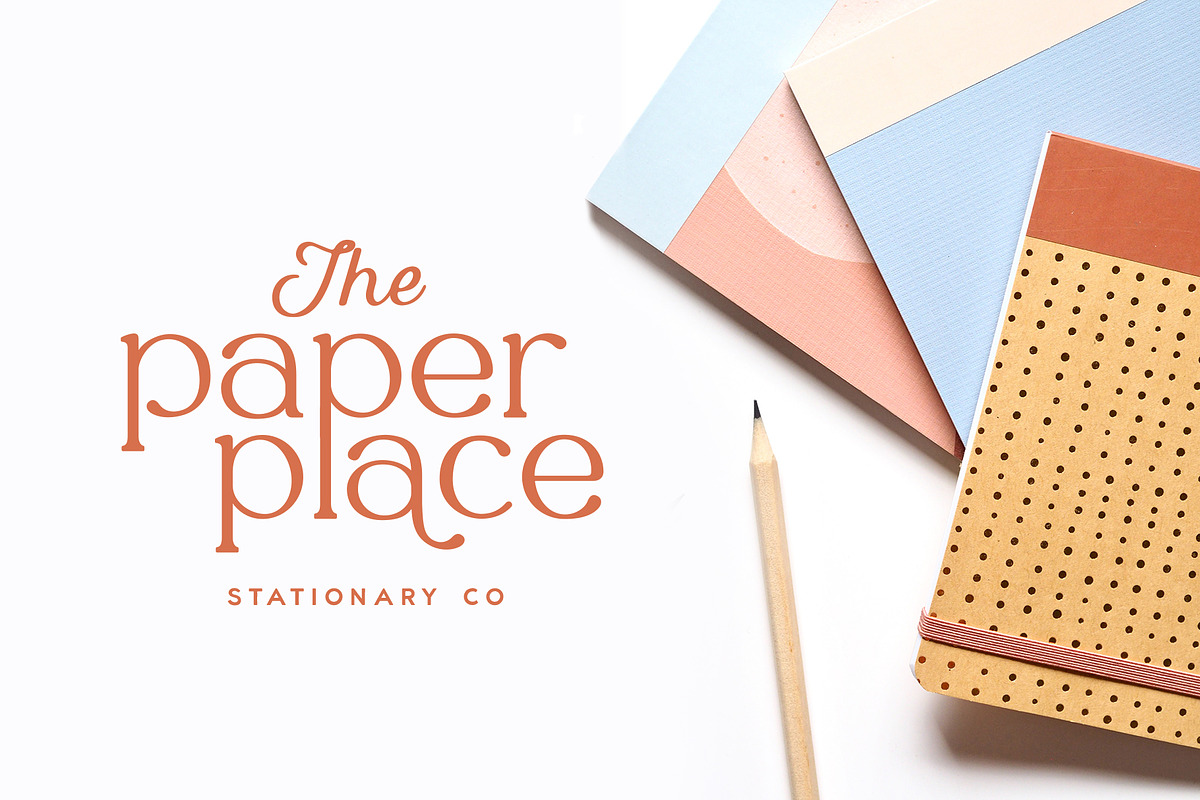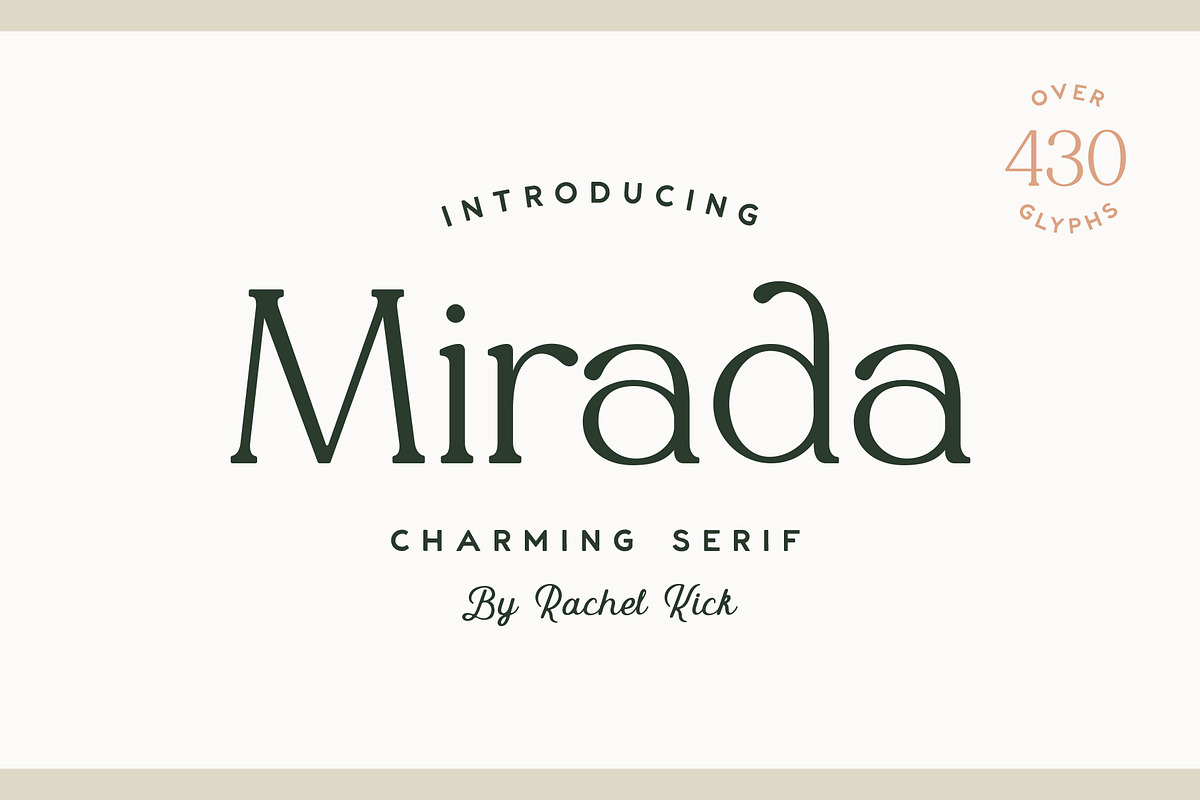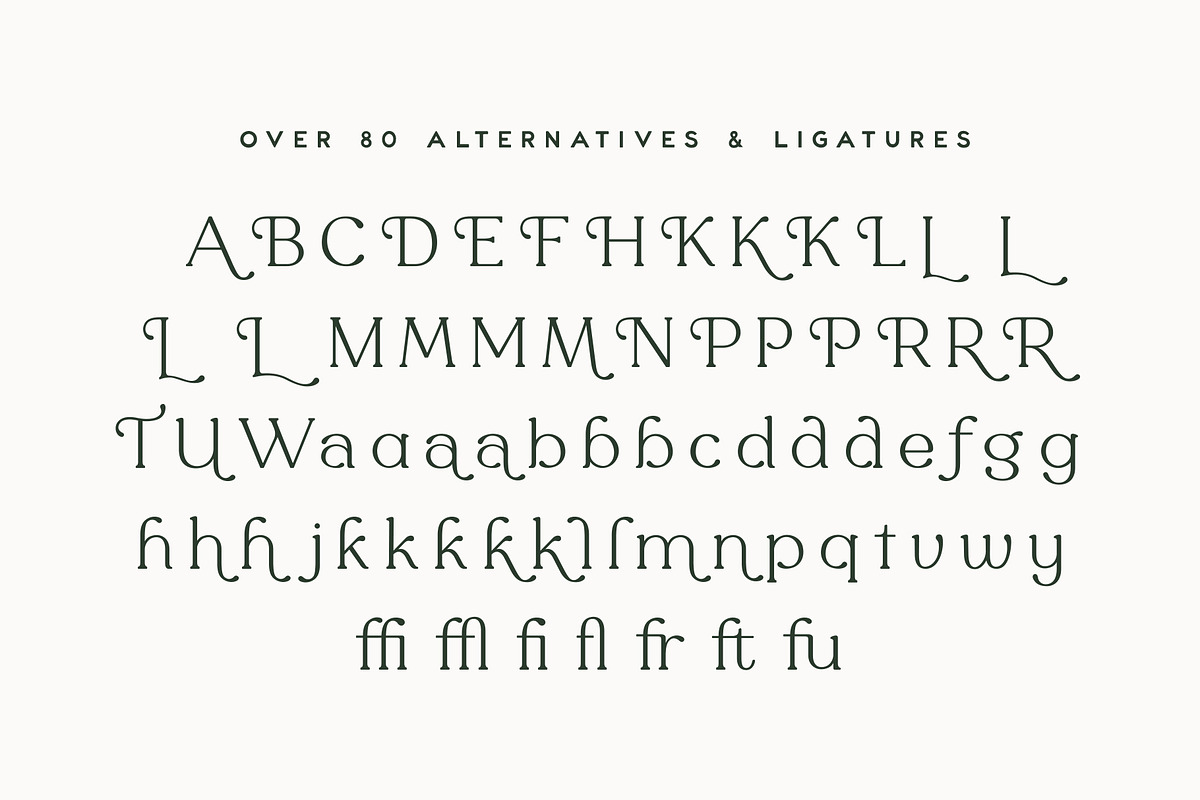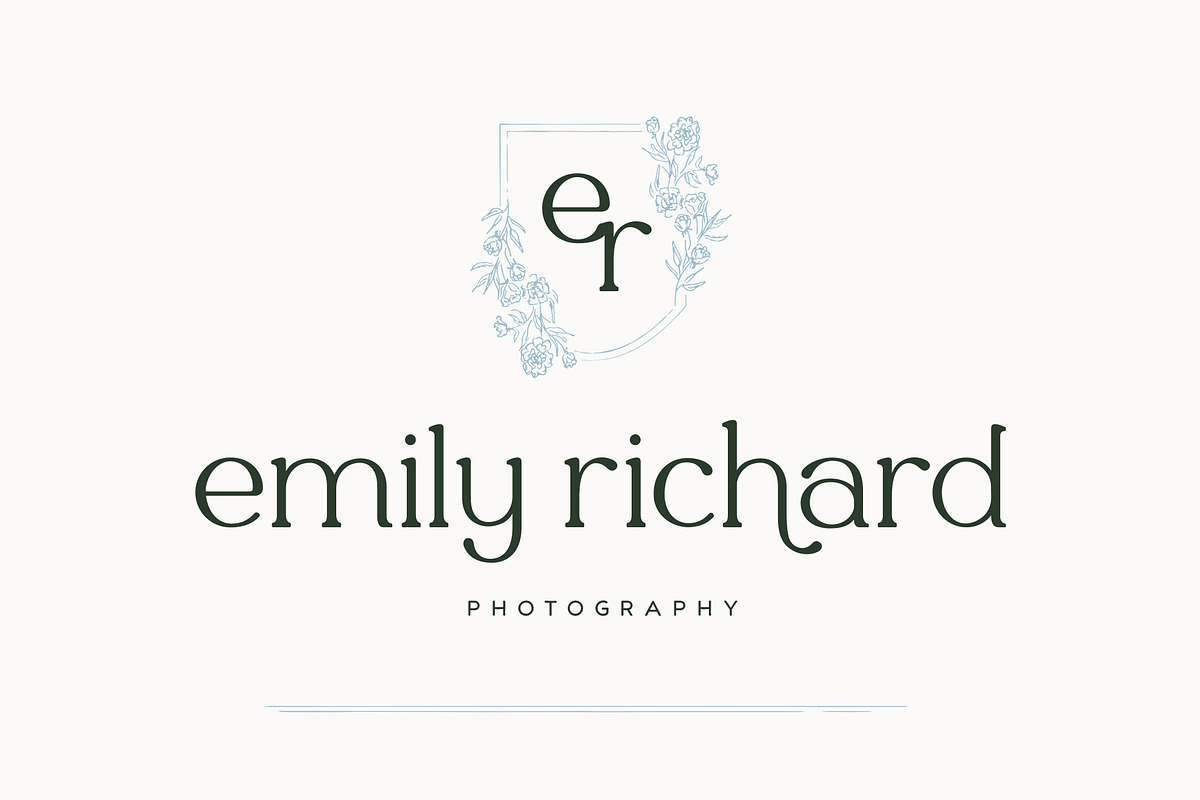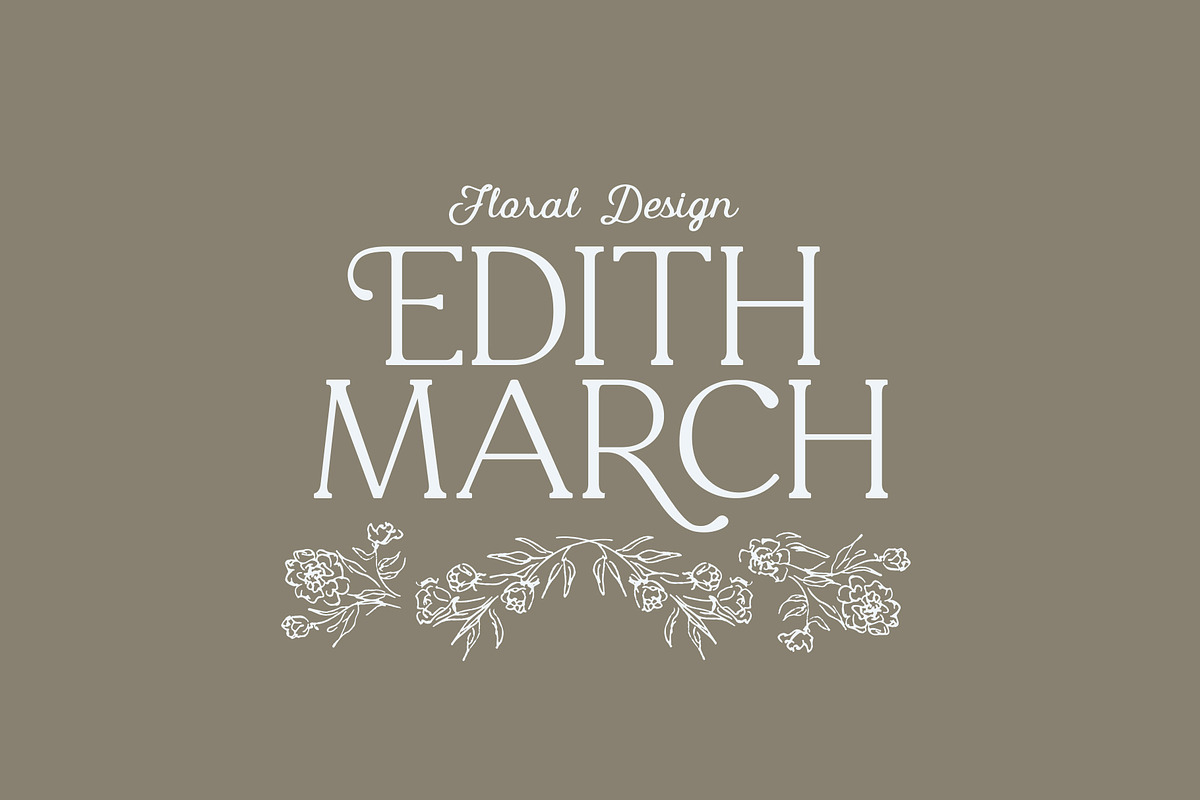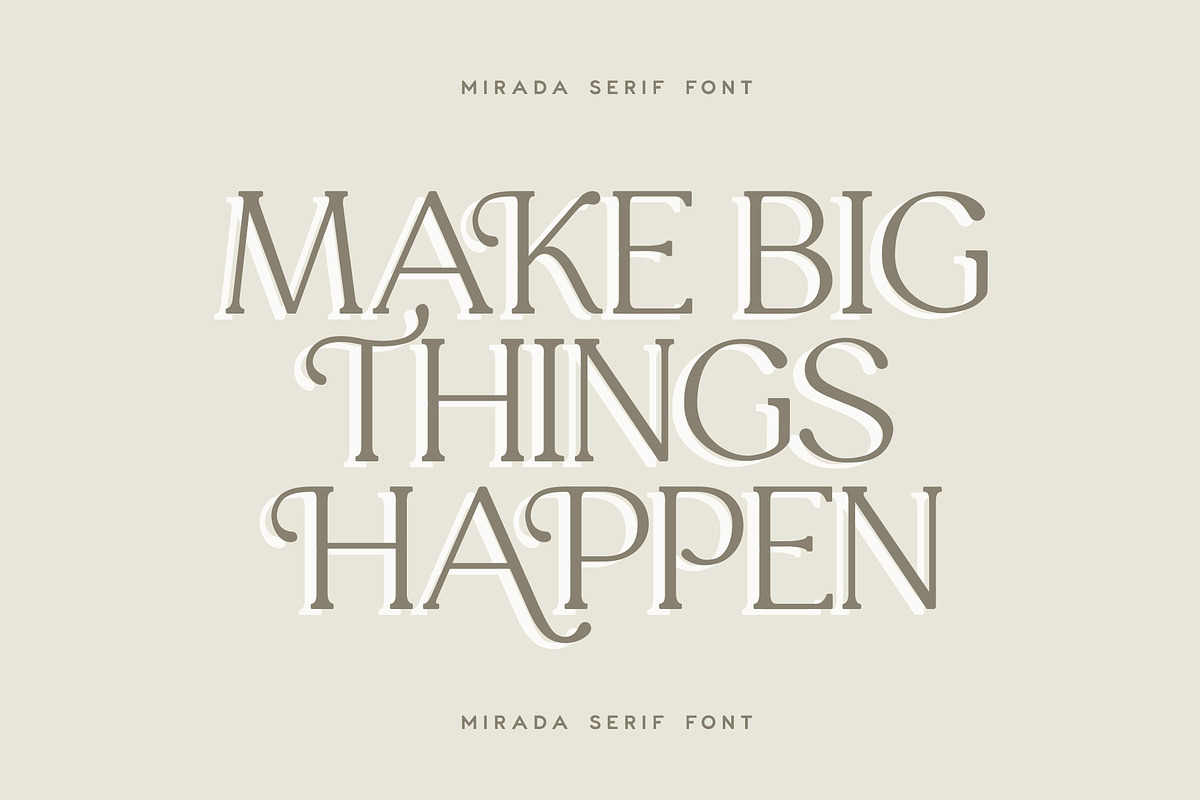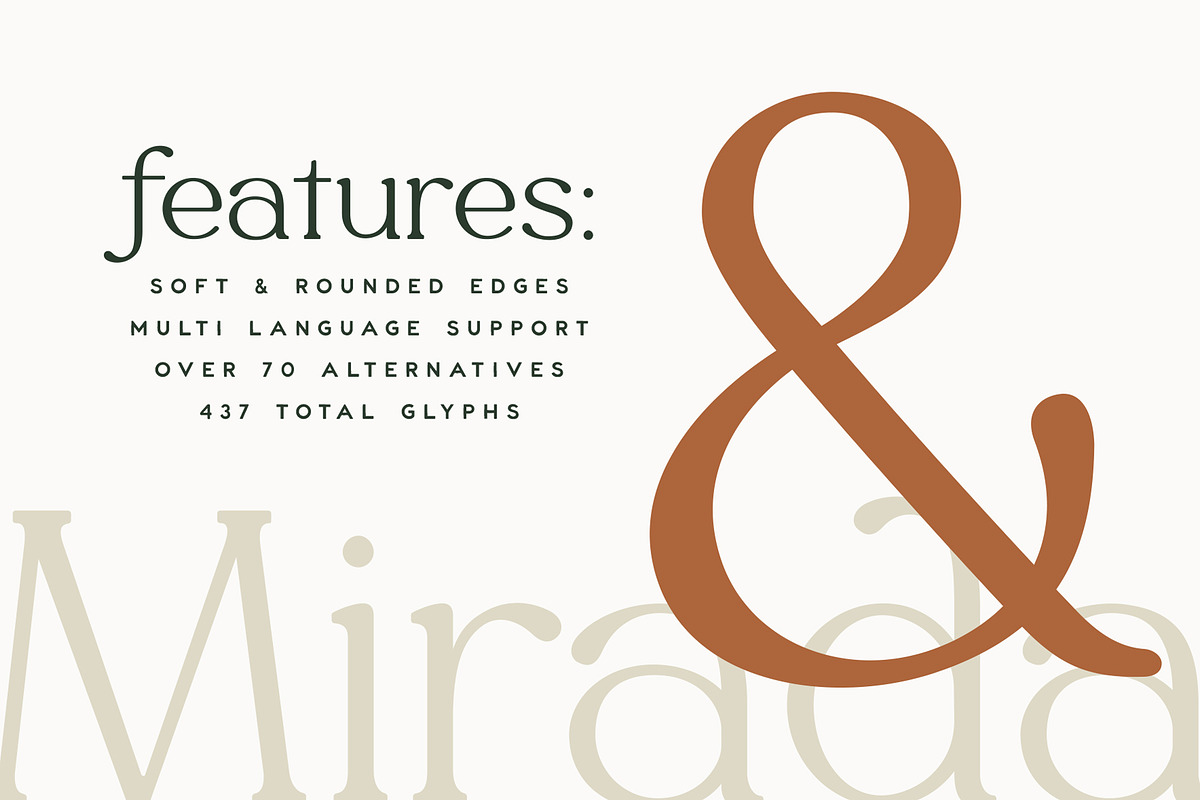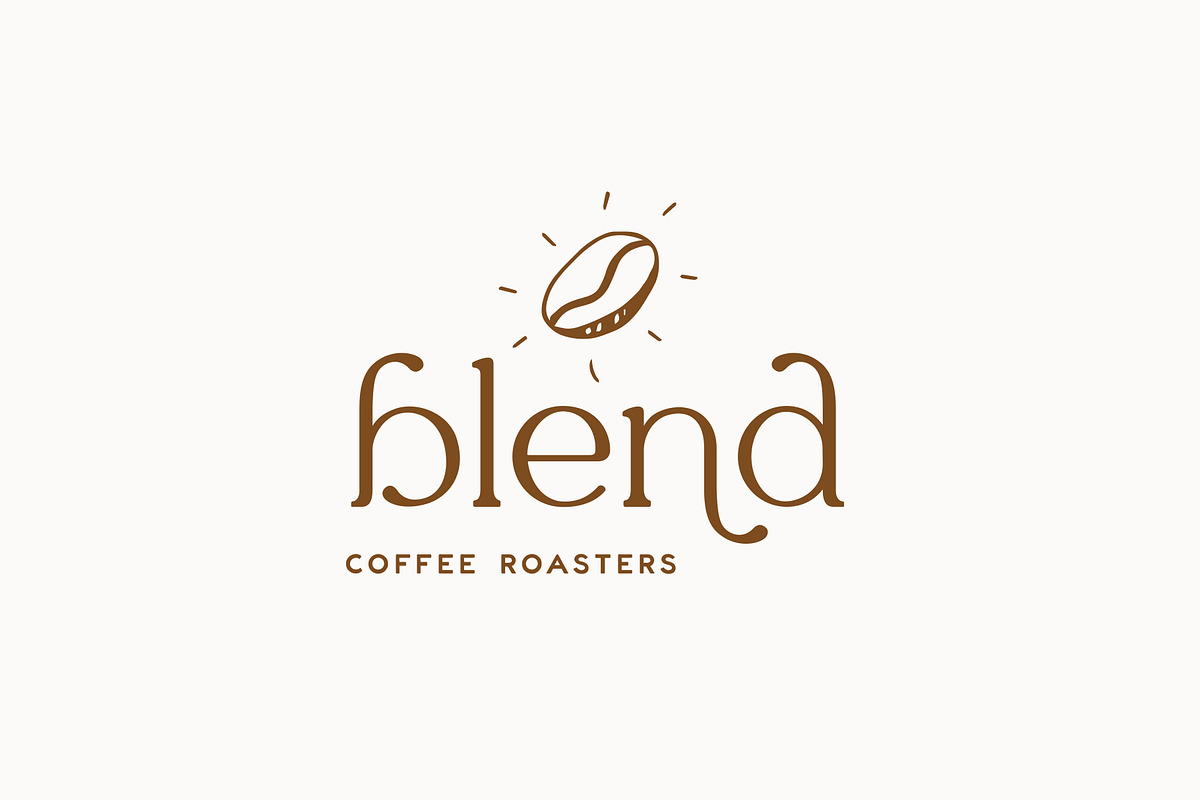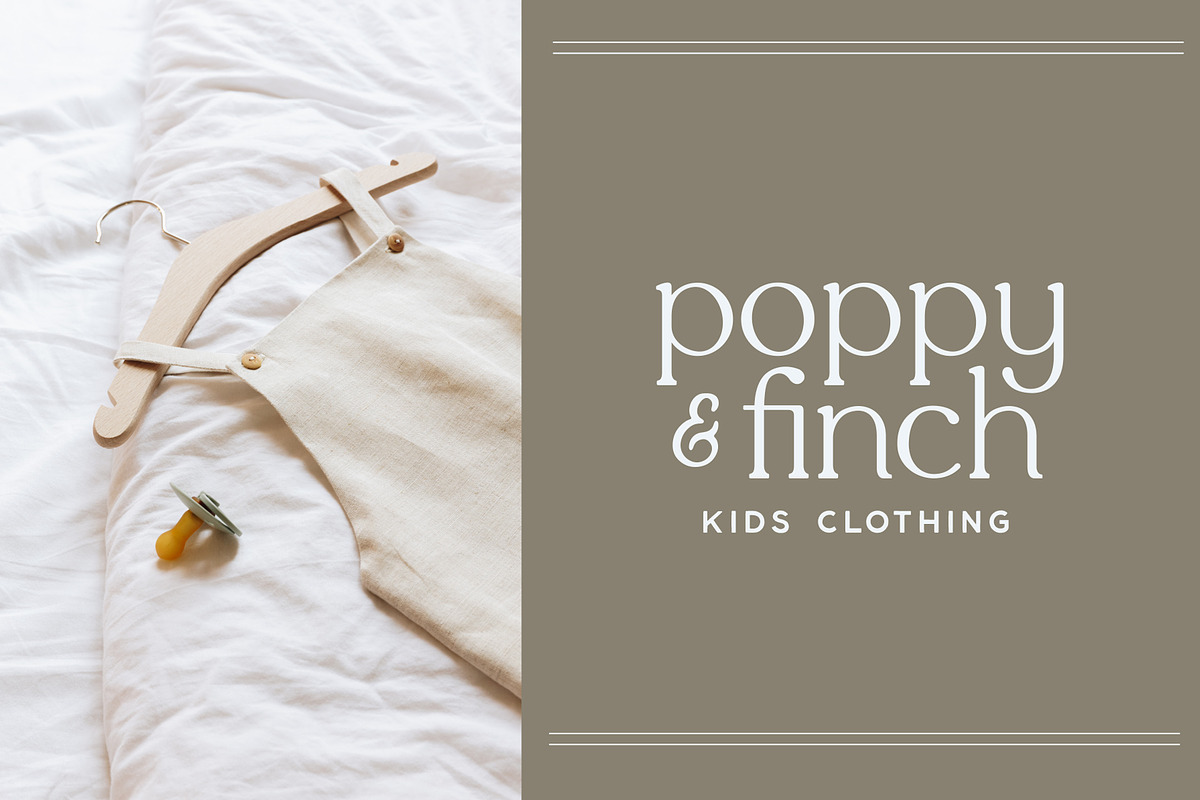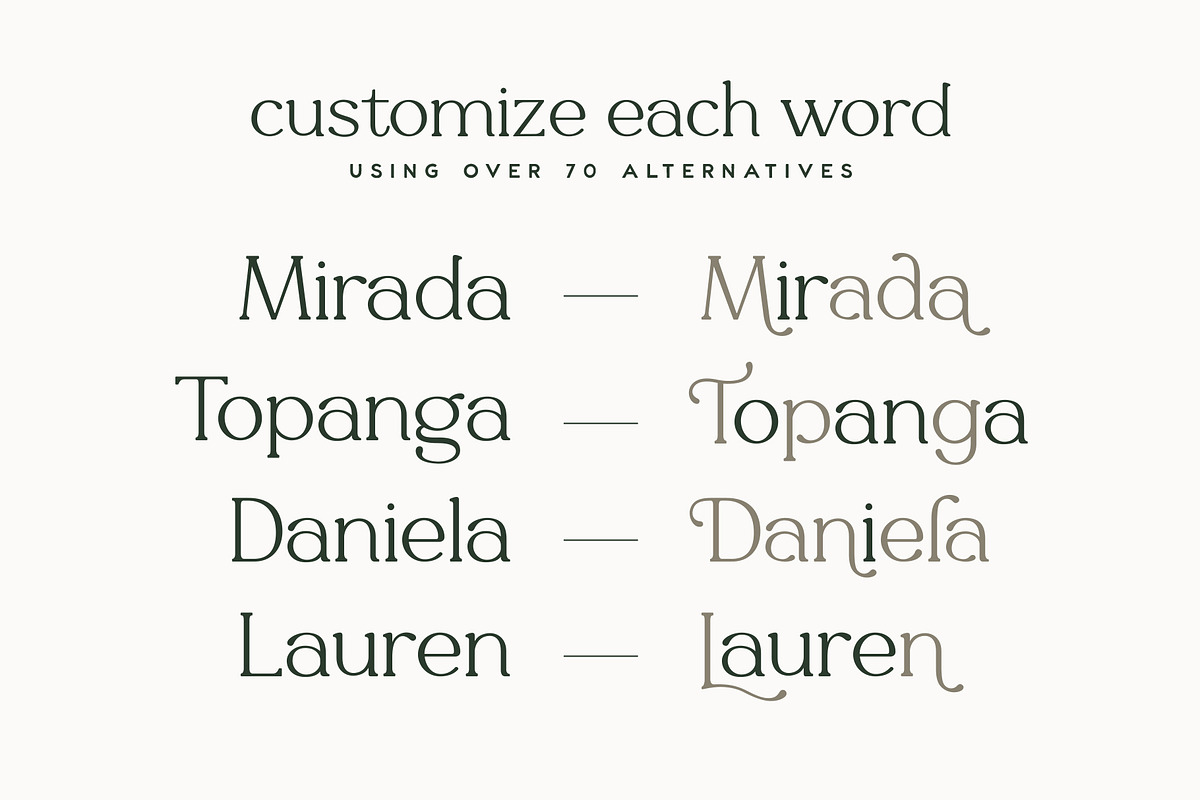
Mirada Serif
Mirada is a charming display typeface with lots of alternative characters. It has a playful and organic feel that has its own hand-drawn charm while still being incredibly legible due to its simple shapes and high x-height. It has the unique ability to stand alone as a title text or work in small paragraph form.
- Soft & Rounded Edges
- Multi-Language Support
- Over 70 Alternatives & Ligatures
- 437 Total Glyphs
Supported Languages: Afrikaans • Albanian • Asu • Basque • Bemba • Bena • Bosnian • Catalan • Cebuano • Chiga • Colognian • Cornish • Corsican • Croatian • Czech • Danish • Dutch • Embu • English • Estonian • Filipino • Finnish • French • Friulian • Galician • German • Gusii • Hungarian • Ido • Indonesian • Interlingua • Irish • Italian • Javanese • Jju • Kabuverdianu • Kalaallisut • Kalenjin • Kamba • Kikuyu • Kinyarwanda • Kurdish • Latvian • Lithuanian • Lojban • Low German • Lower Sorbian • Luo • Luxembourgish • Luyia • Machame • Makhuwa-Meetto • Makonde • Malagasy • Malay • Manx • Māori • Meru • Morisyen • North Ndebele • Northern Sotho • Norwegian Bokmål • Norwegian Nynorsk • Nyanja • Nyankole • Occitan • Oromo • Polish • Portuguese • Romanian • Romansh • Rombo • Rundi • Rwa • Samburu • Sango • Sangu • Sardinian • Scottish Gaelic • Sena • Shambala • Shona • Sicilian • Slovak • Slovenian • Soga • Somali • South Ndebele • Southern Sotho • Spanish • Sundanese • Swahili • Swati • Swedish • Swiss German • Taita • Taroko • Teso • Tsonga • Tswana • Turkish • Turkmen • Upper Sorbian • Vunjo • Walloon • Walser • Welsh • Western Frisian • Xhosa • Zulu